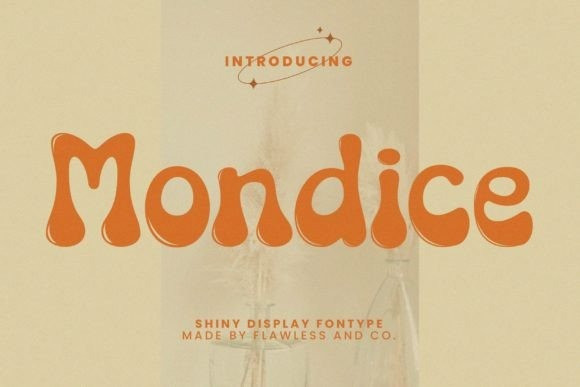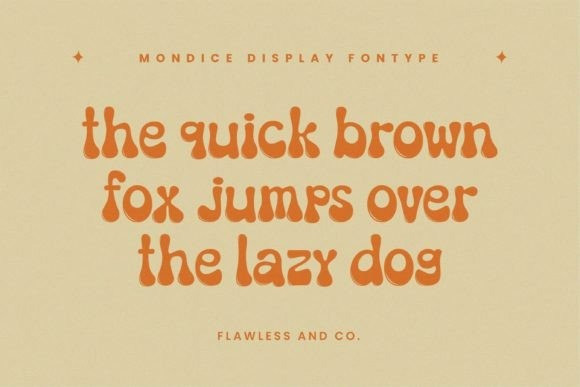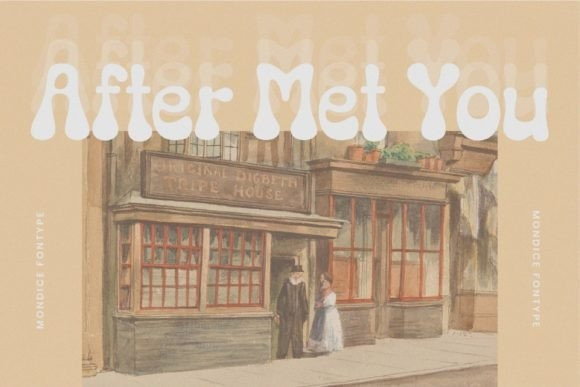
Mondice Font
Mondice is a fun retro display font with a shiny and bold style. This typeface is perfect for your groovy-themed projects such as poster designs, branding materials, t-shirts, business cards, logos, photography, quotes, and more.